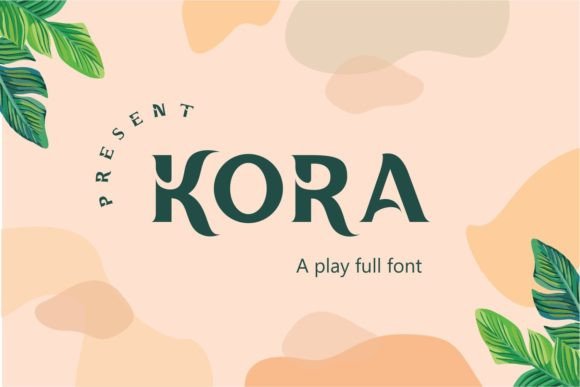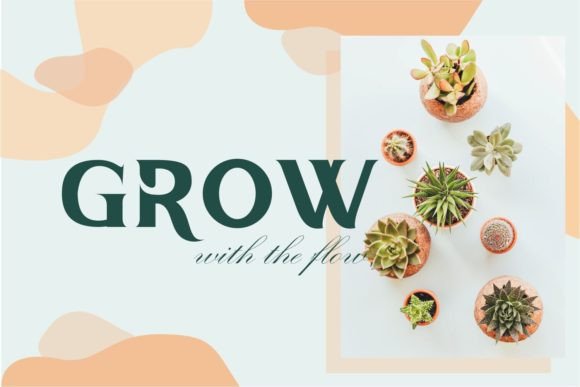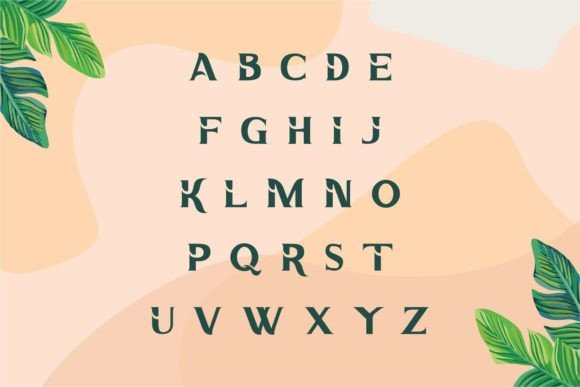
Kora Font: A Playful Display Font for Tropical Branding & Logo Design
About the Kora Font
Presenting Kora Font, a unique and stylish typeface that will make your work stand out. The beauty of tropical design with broken accents makes Kora fonts enter different types and levels of font display. Kora font presents how goodness can emerge from something simple.
Kora tends to be more of a display font. It is ideal for creating logos and titles for magazines, product promotions, product packaging design, advertising, and film production.
Kora’s playful yet sophisticated personality makes it perfect for projects requiring a touch of tropical vibrancy. It excels in headlines, short impactful statements, and branding applications where a bold, memorable aesthetic is desired. Consider it for packaging, posters, and social media graphics, but avoid using it for extensive body text or UI elements where readability is paramount.
Its broken accents, while visually striking, can hinder legibility in smaller sizes or continuous text. Pair Kora effectively with clean sans-serif fonts like Open Sans for body copy or a more geometric sans-serif like Futura for a modern contrast. For a touch of elegance, a delicate serif like Garamond can complement its tropical energy.
Brands seeking a fun, yet refined image—think tropical resorts, artisanal food products, or fashion brands with a playful edge—will find Kora a strong visual asset. Avoid pairing it with overly ornate or heavily embellished fonts, as this would clash with its unique character.
Kora Font Usage Examples
Kora Font Example